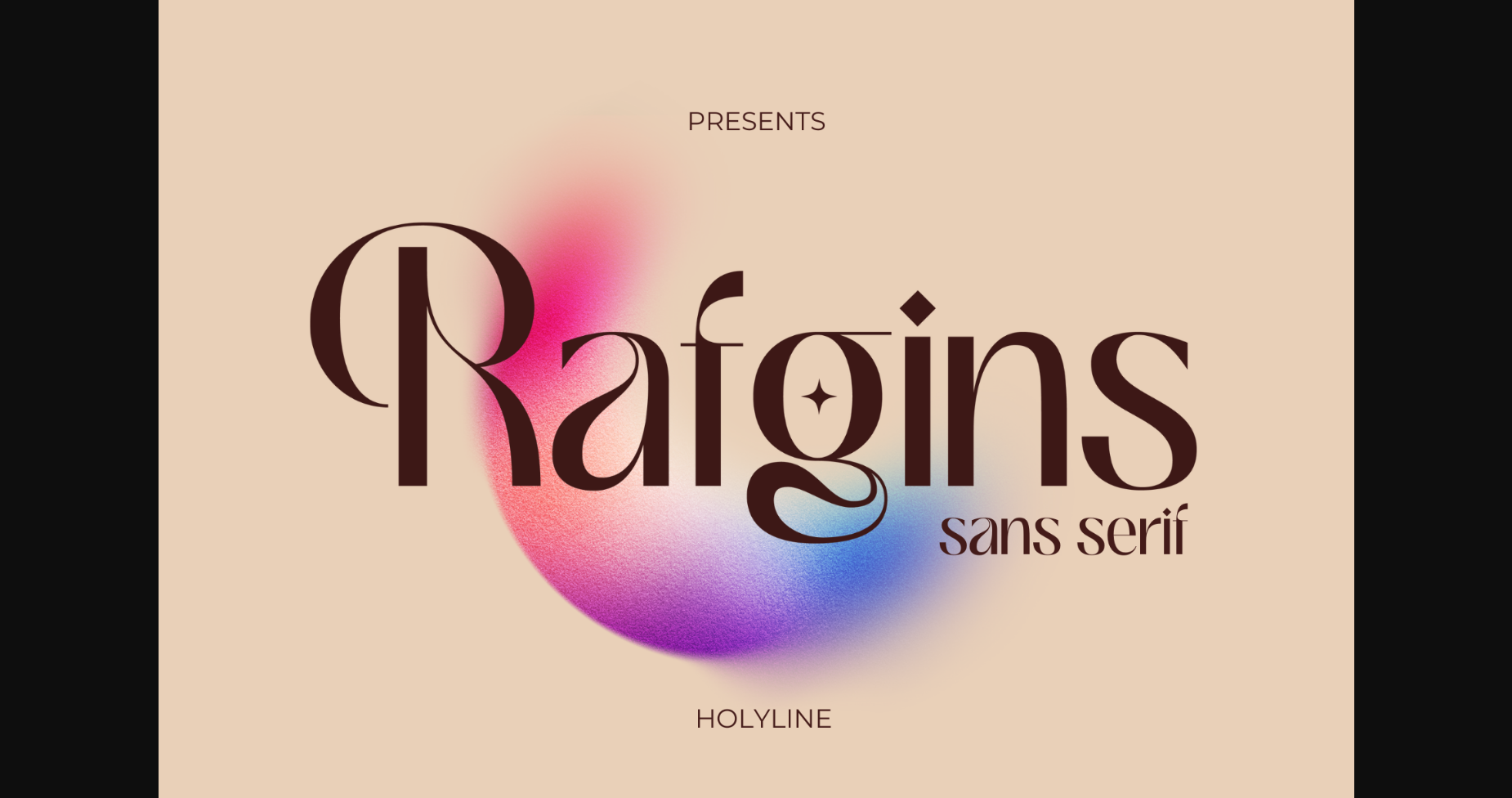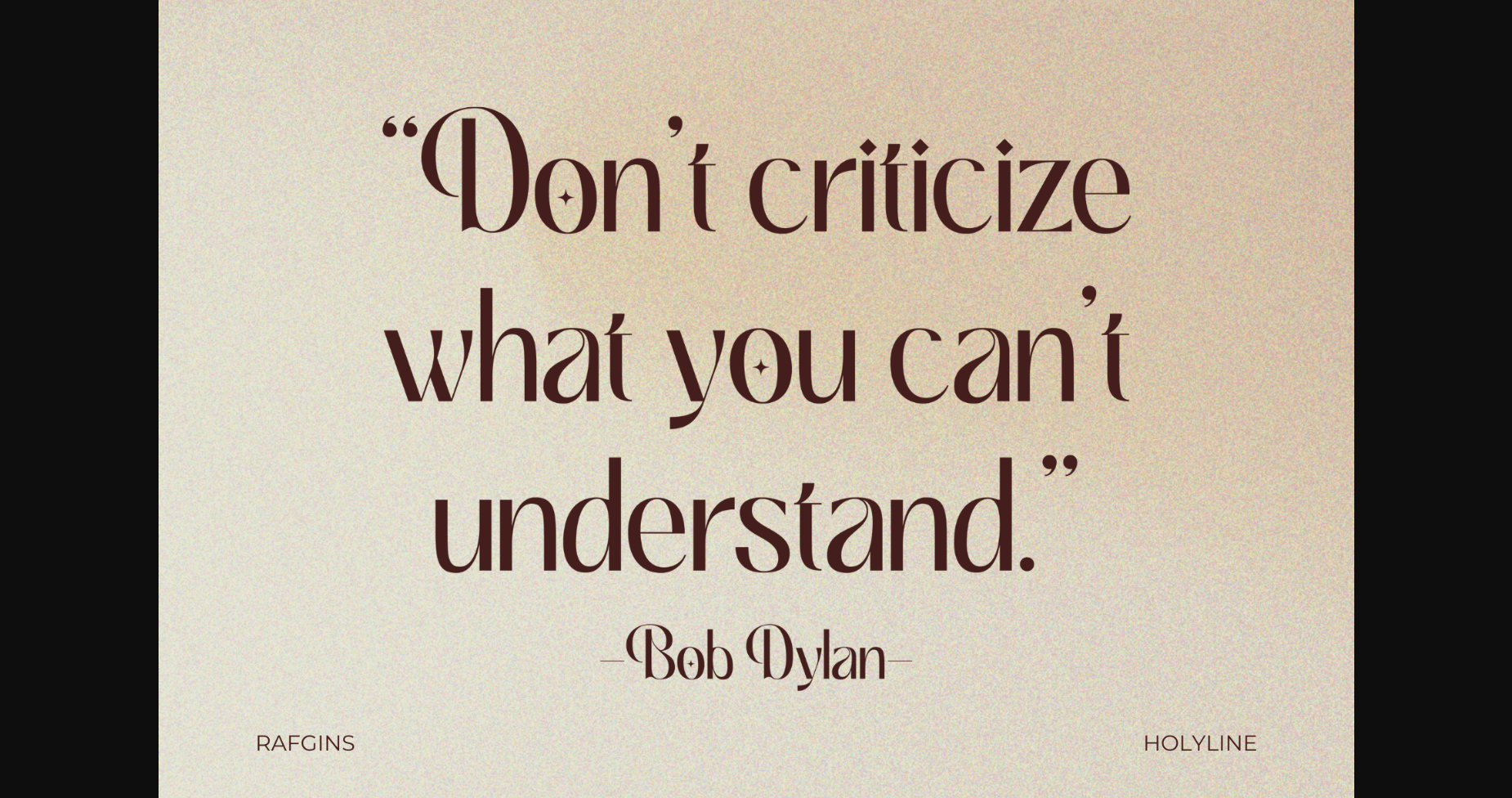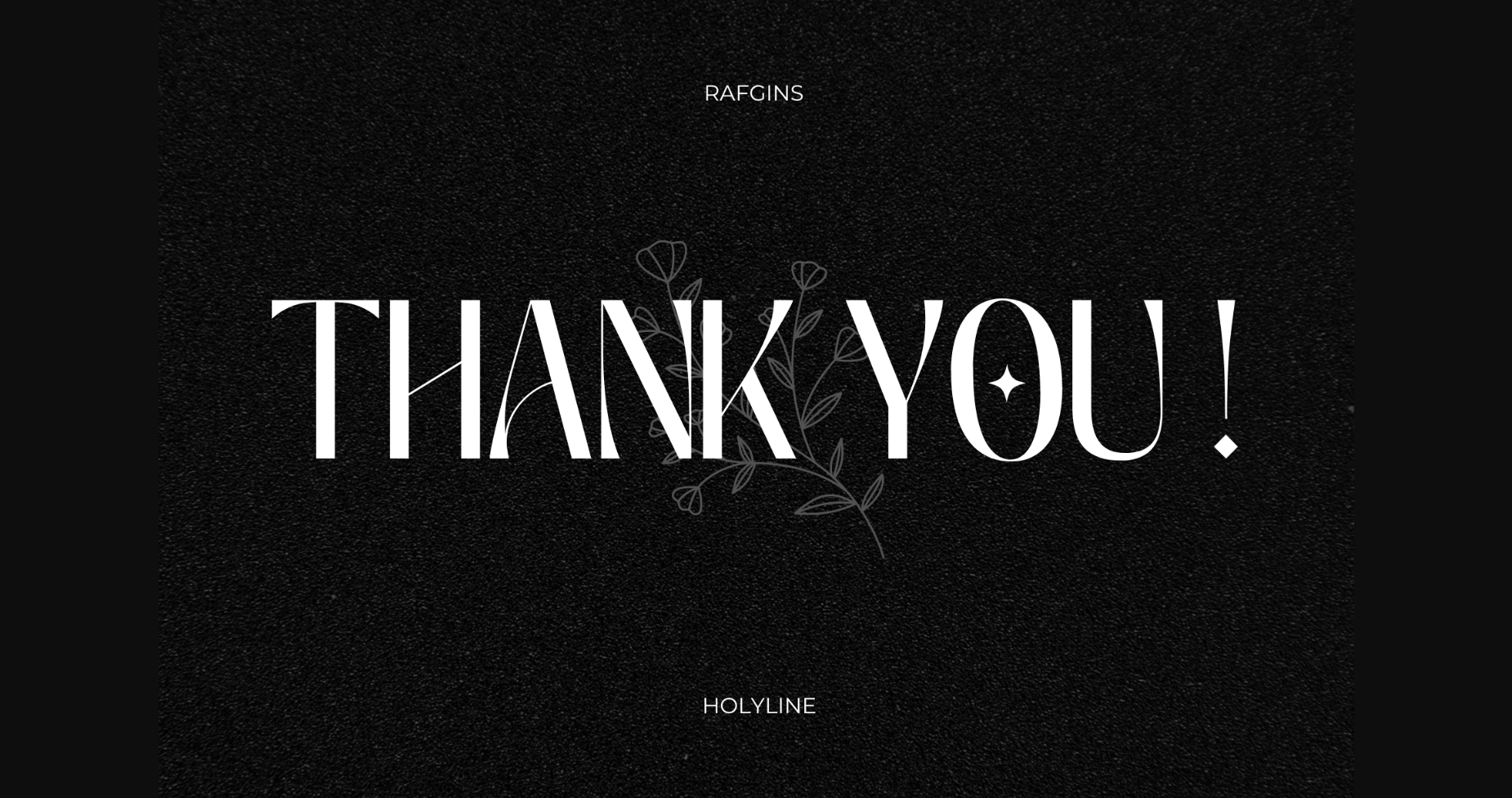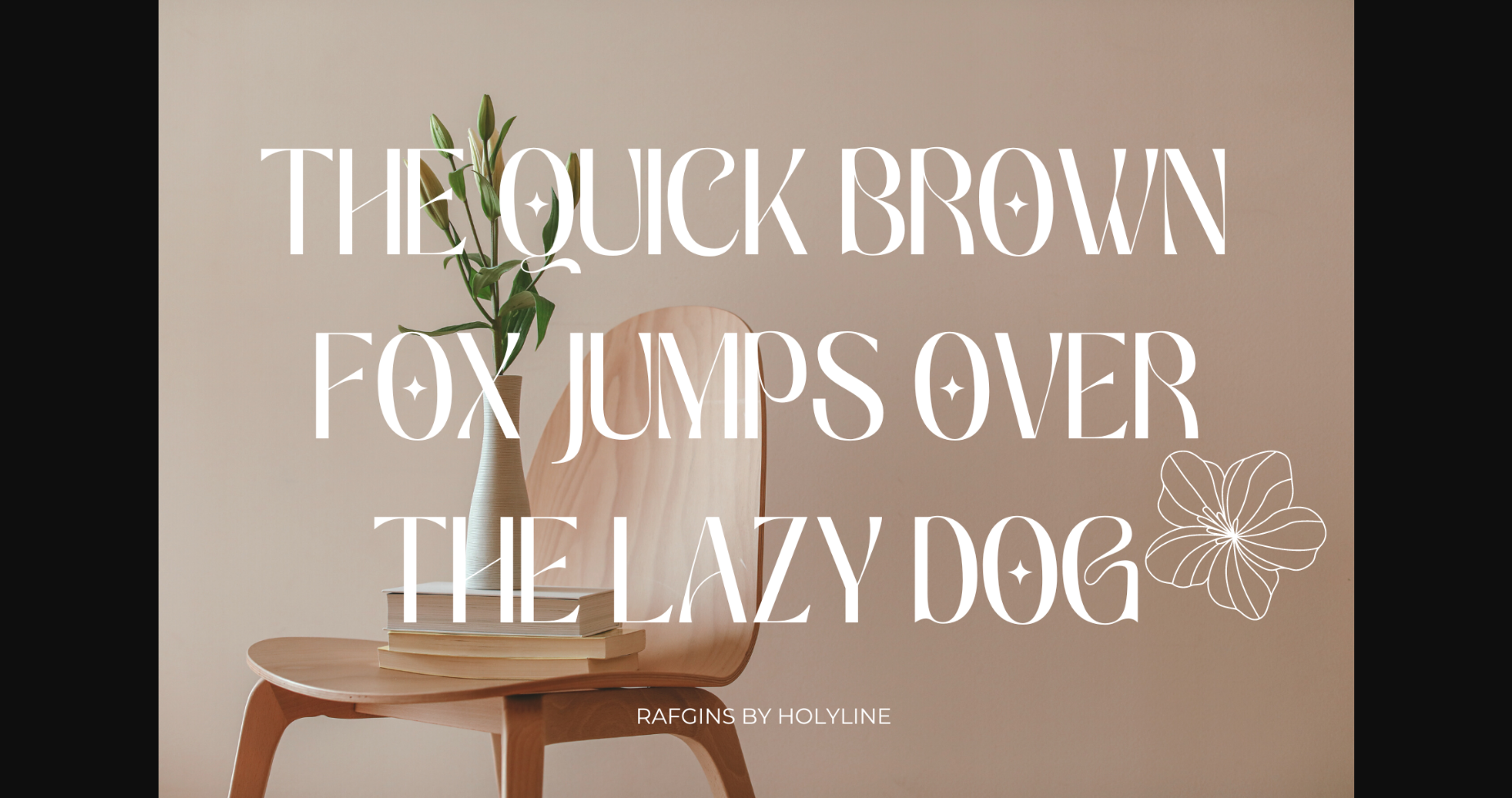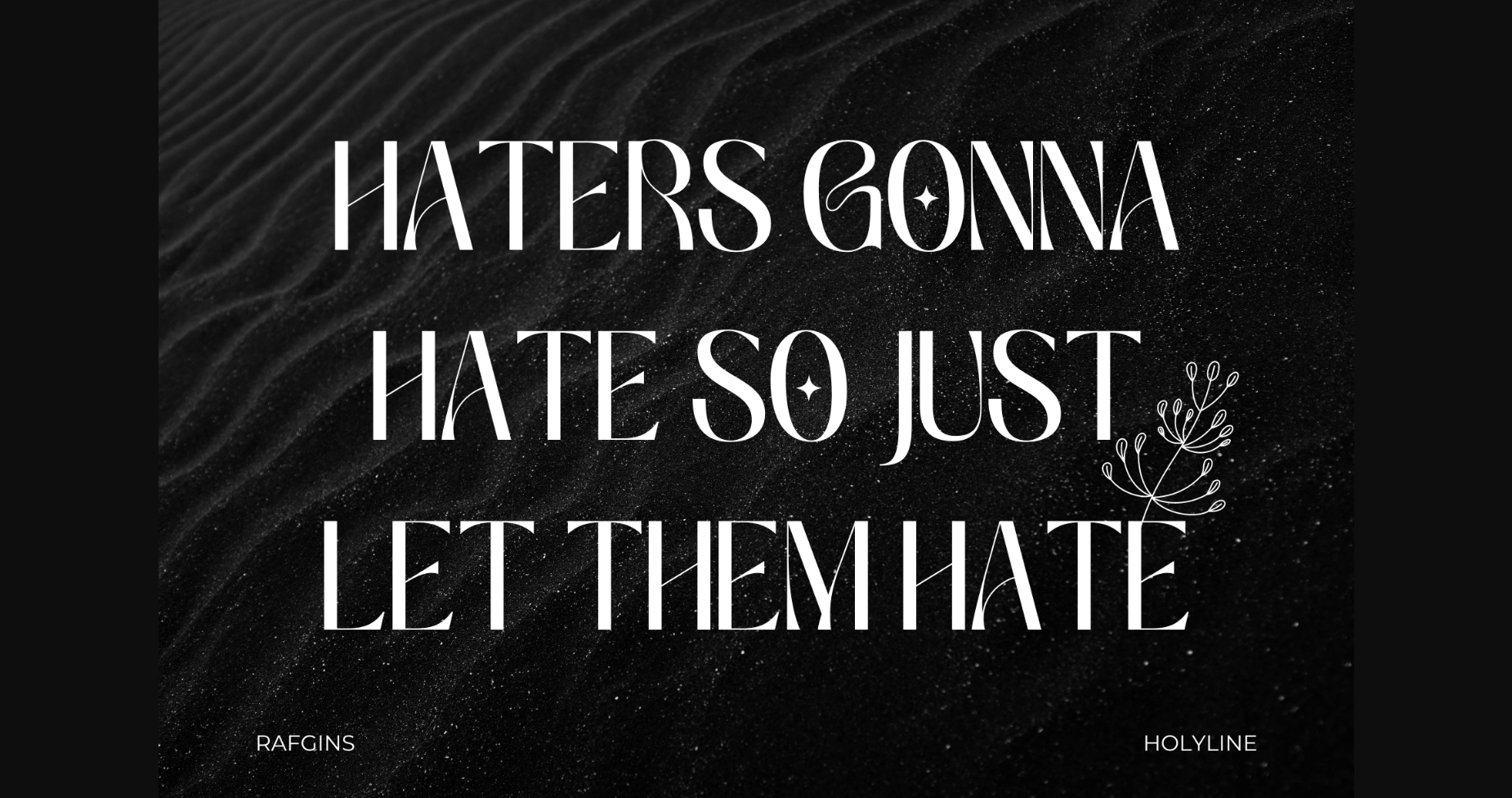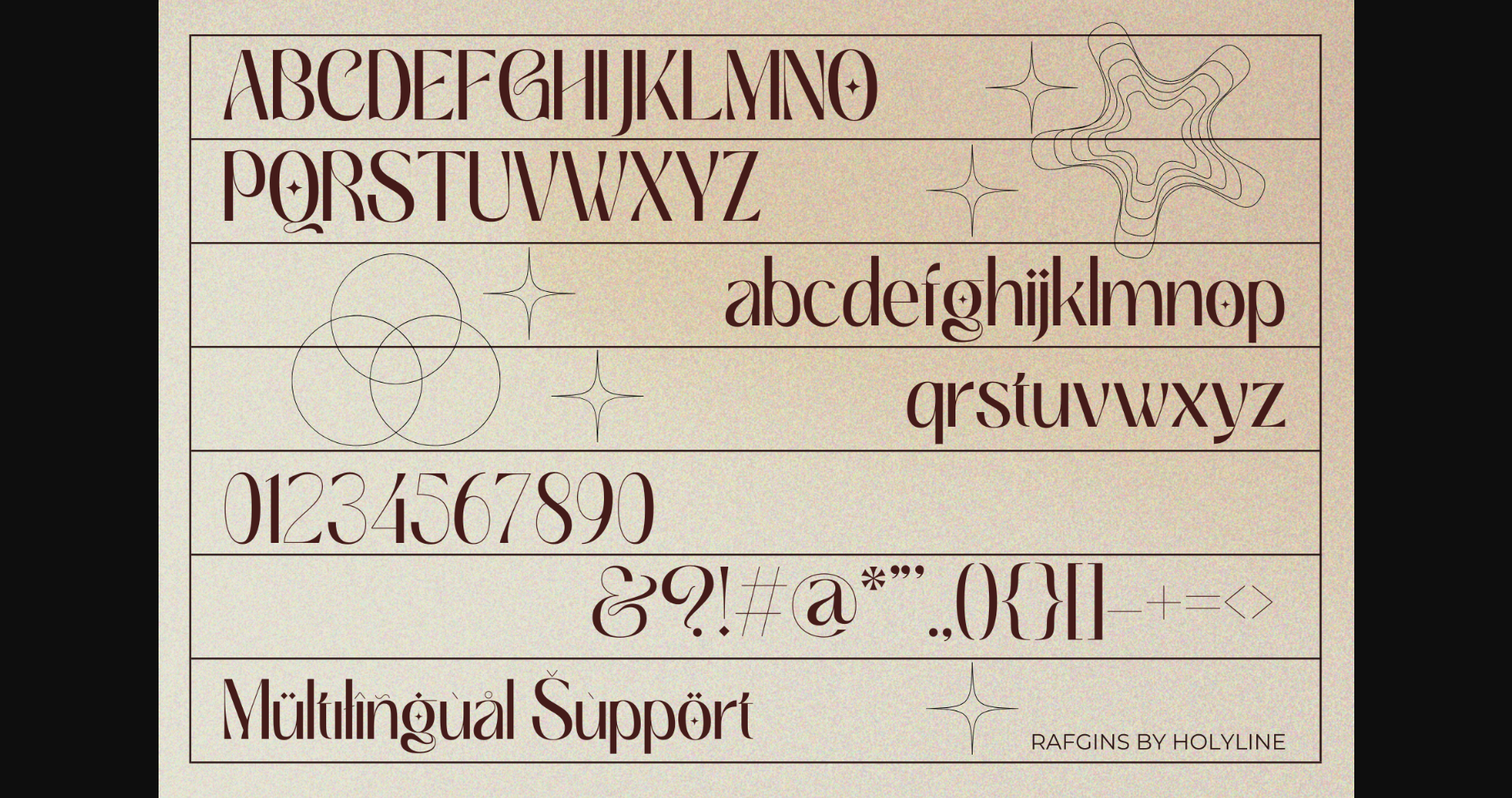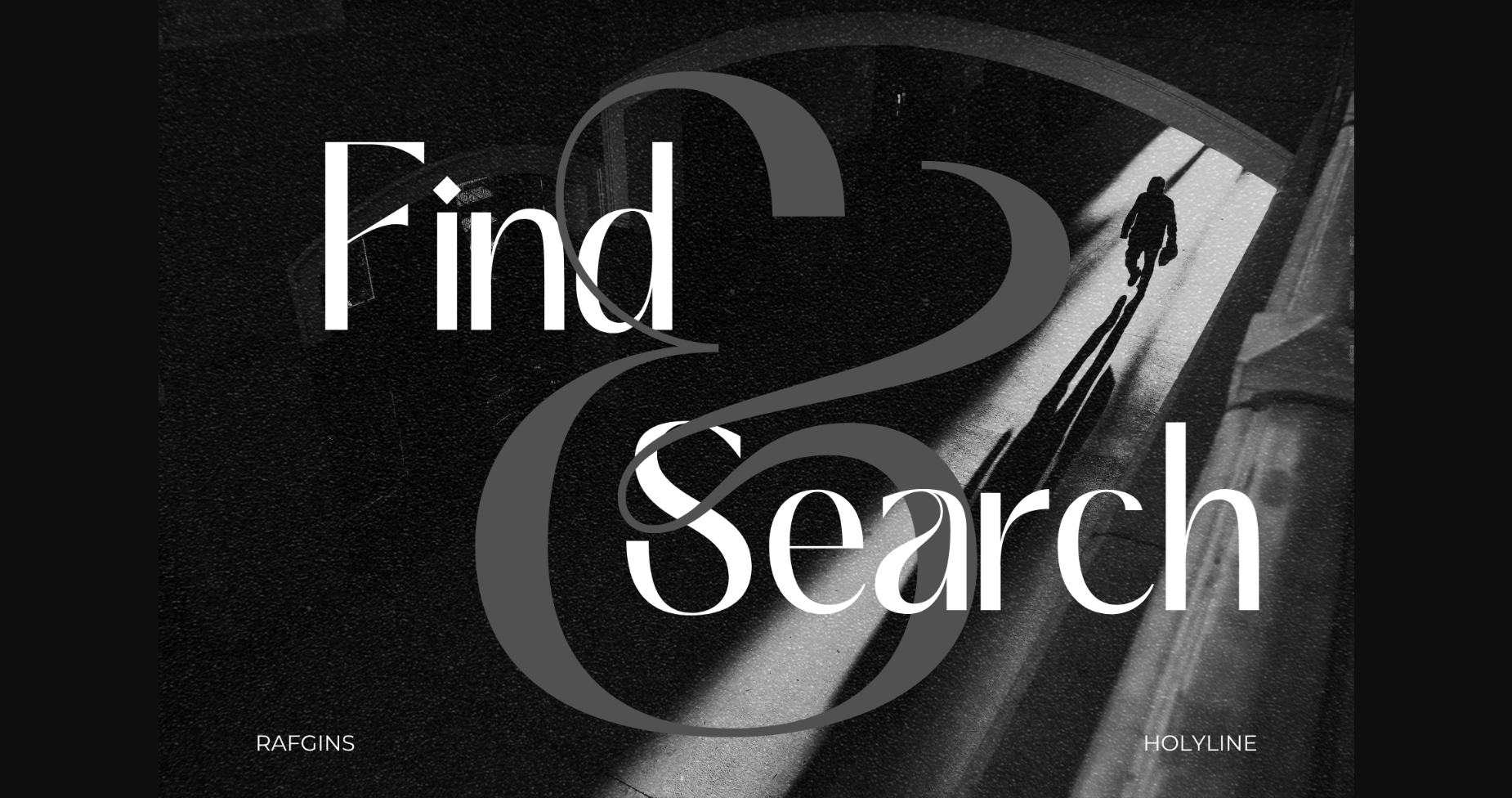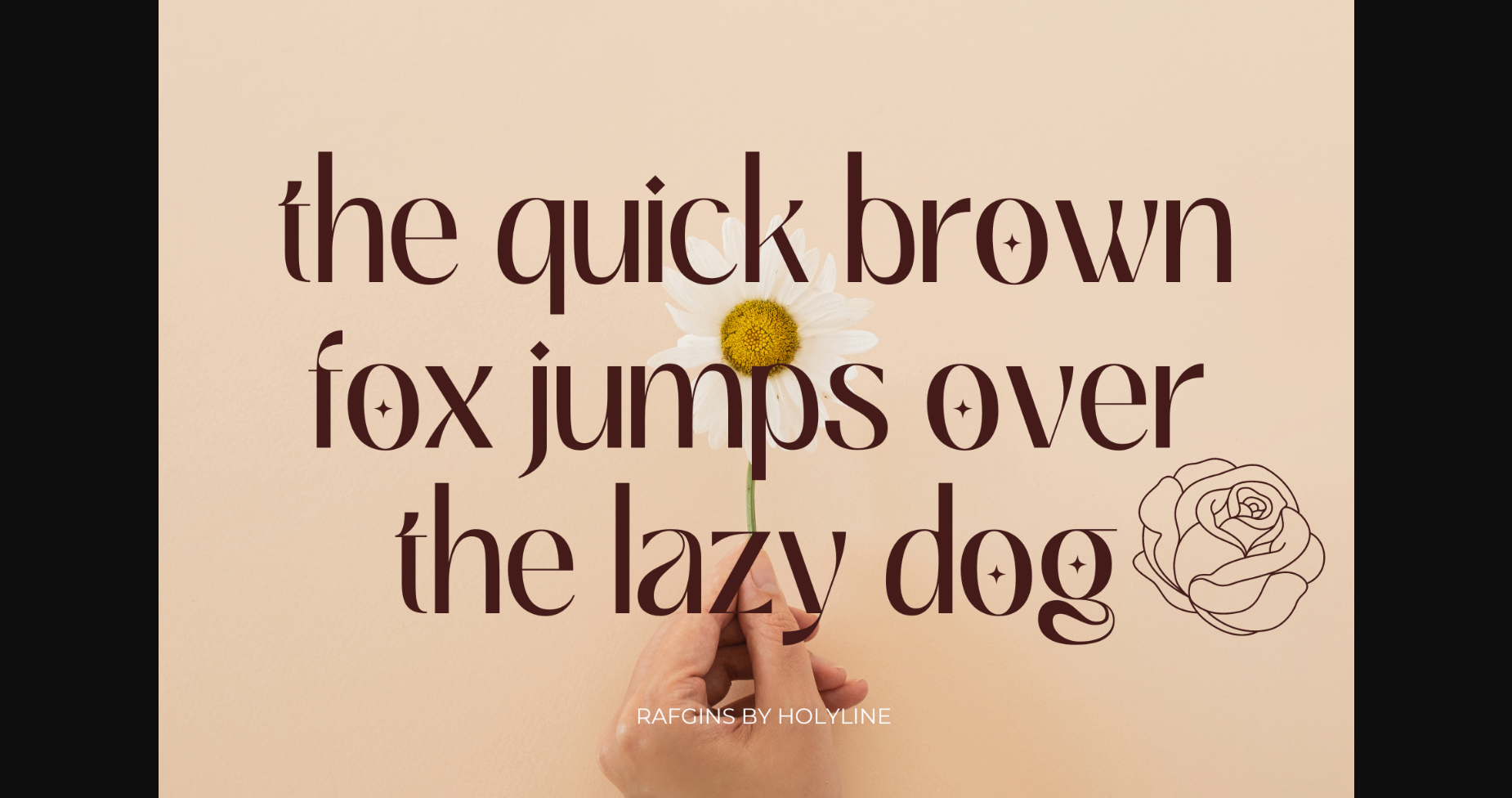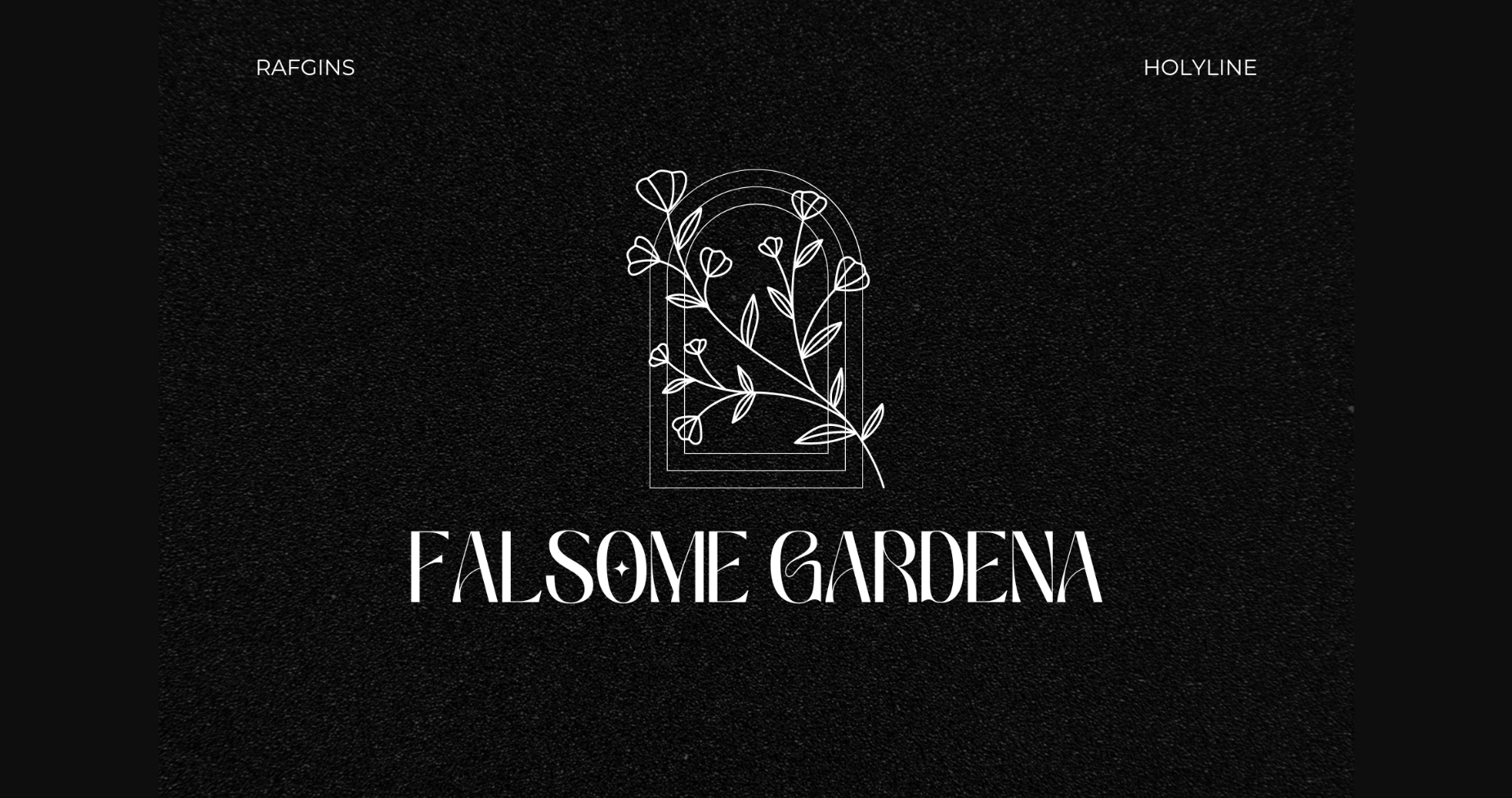
Rafgins Font
About Rafgins Font
Rafgins is an exquisite and modern sans-serif font. Its clean, minimalist lines and sleek, contemporary style create a sense of understated elegance that is perfect for adding a touch of professionalism to your branding or typography. With its refined and versatile design, this font is sure to impress and inspire.